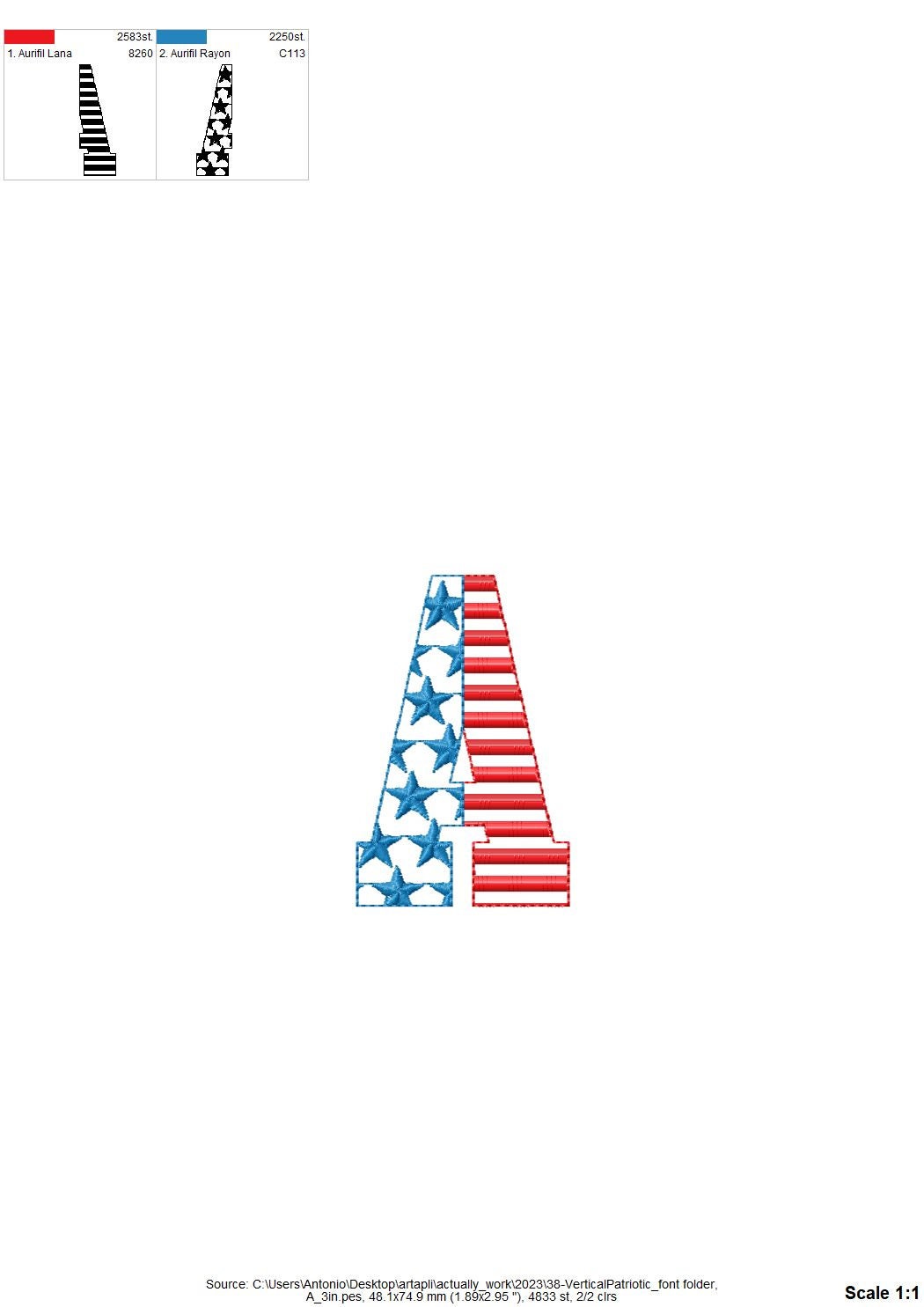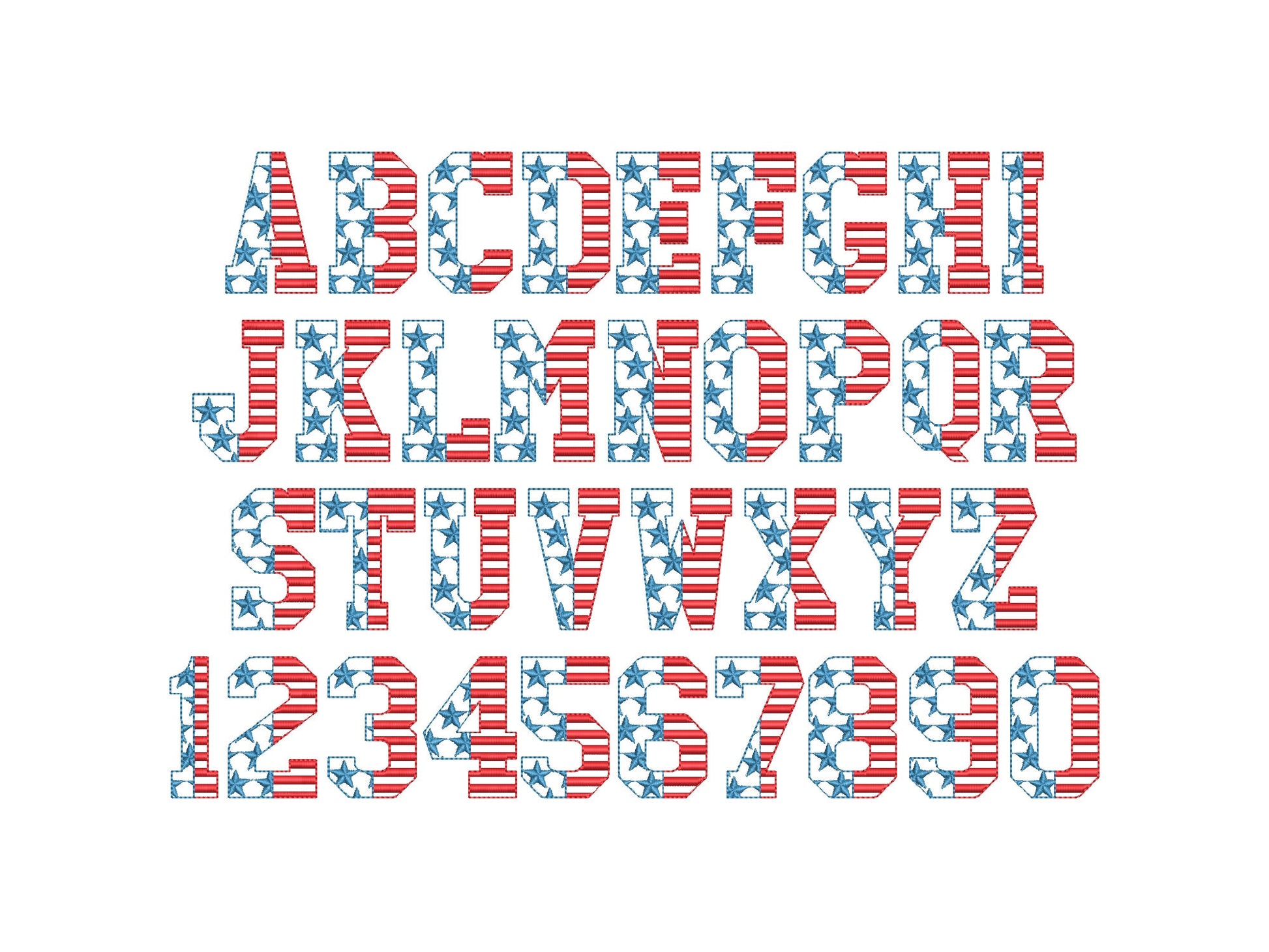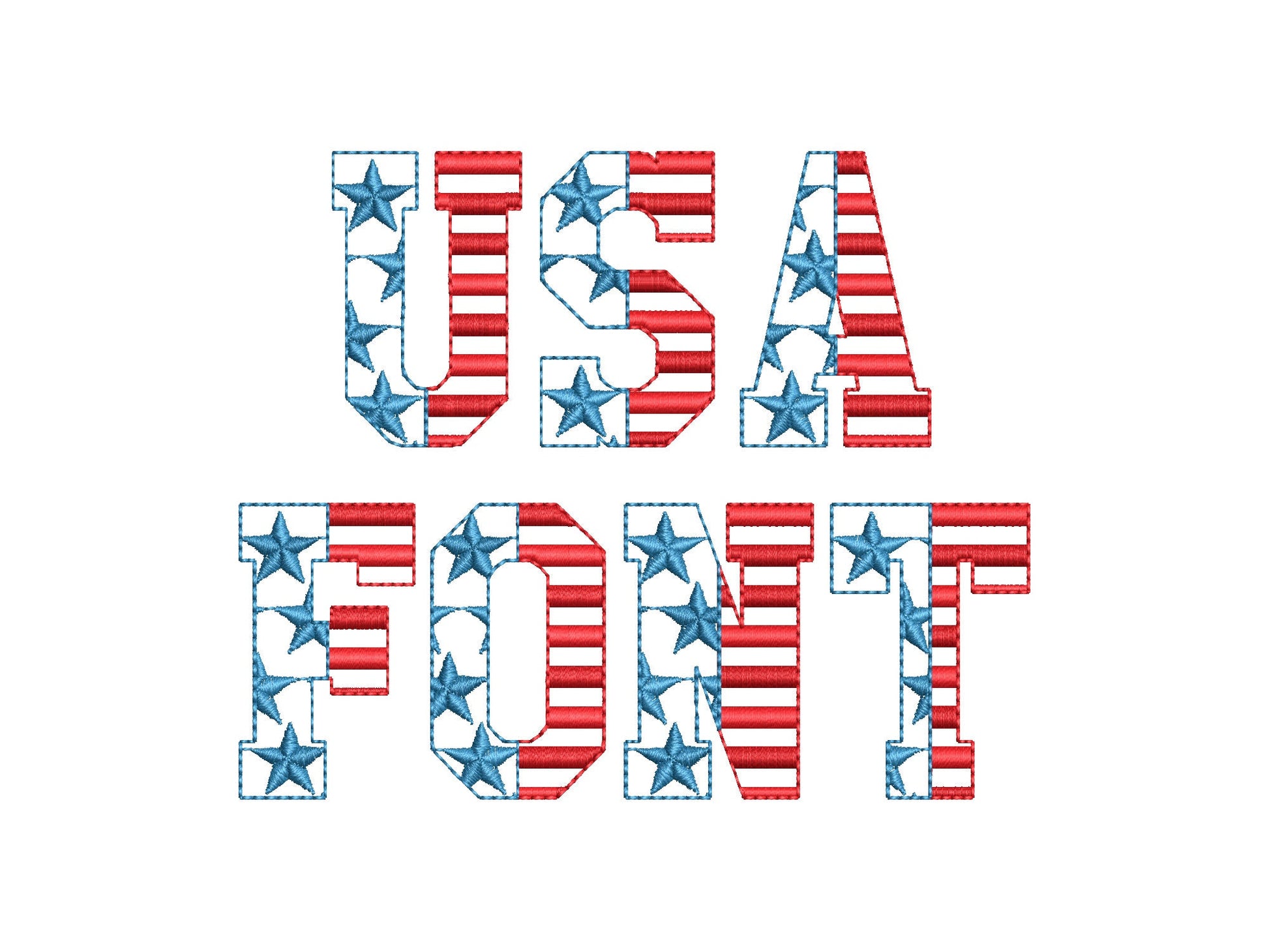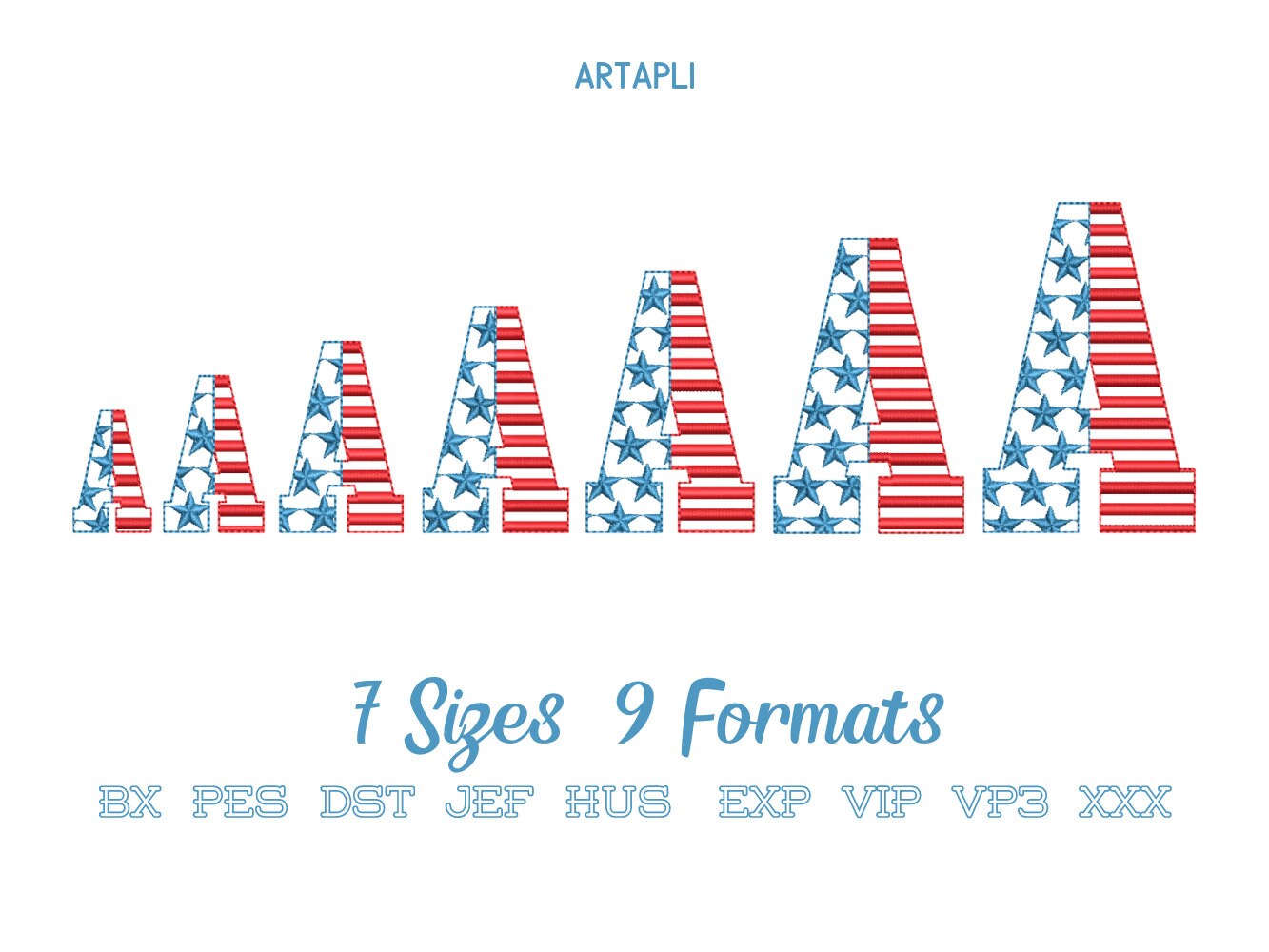
Or click to open the linkA patriotic stars and stripes block font in light stitch. Great for Fourth of July shirts, pillows, bags and banners.
Uppercase letters A to Z and numbers 0 to 9. Seven sizes: 1.4, 1.8, 2.2, 2.6, 3, 3.3 and 3.7 inches. Light stitching lets the fabric show through.